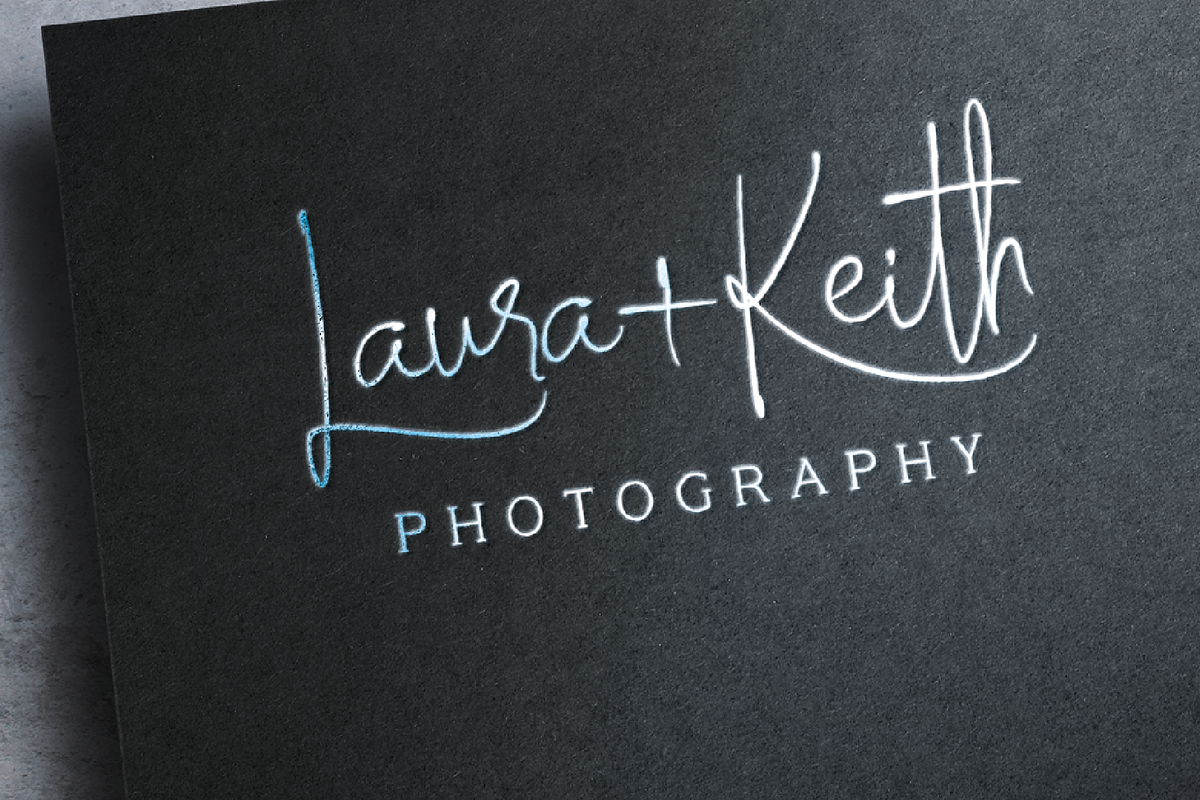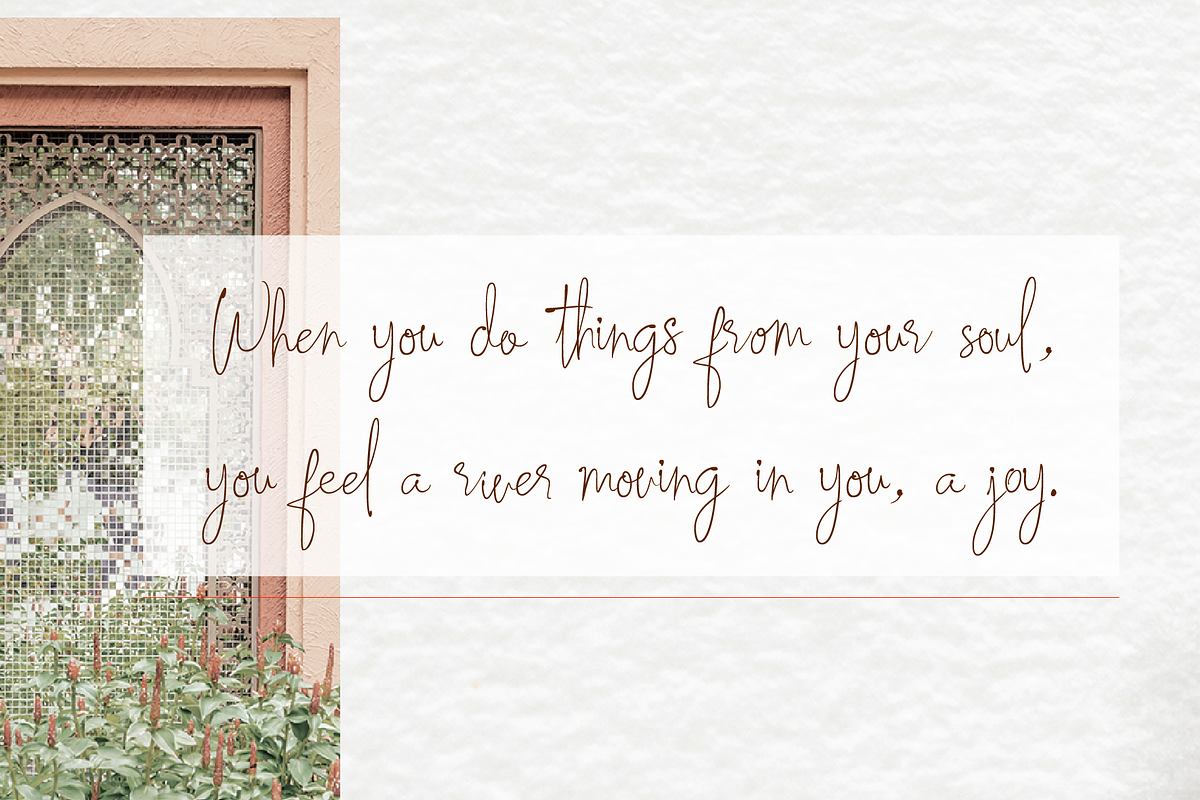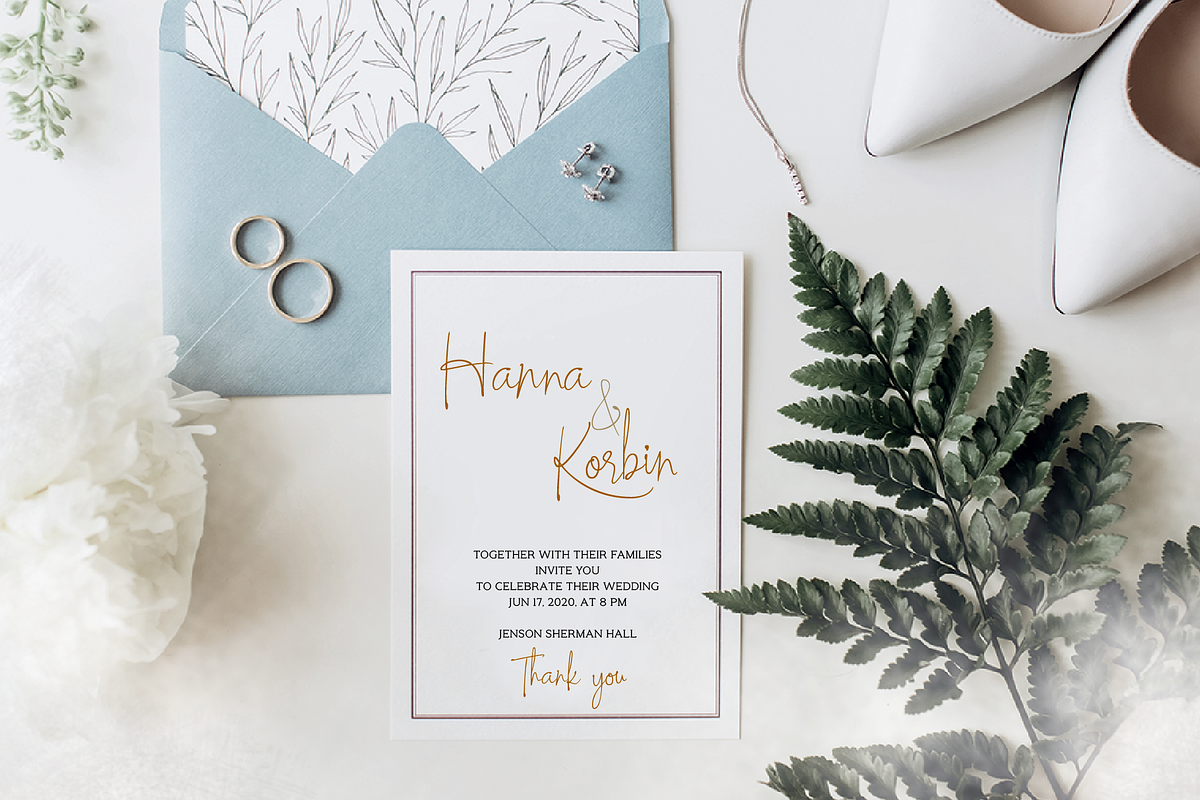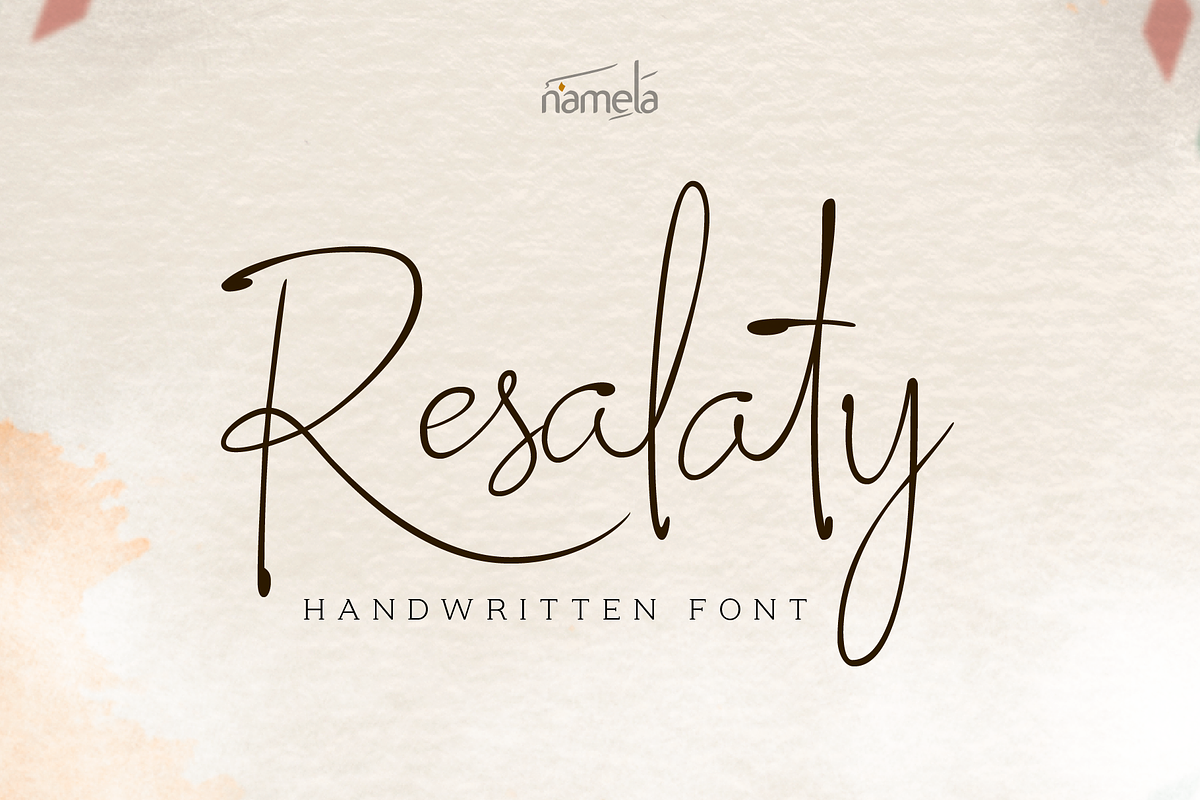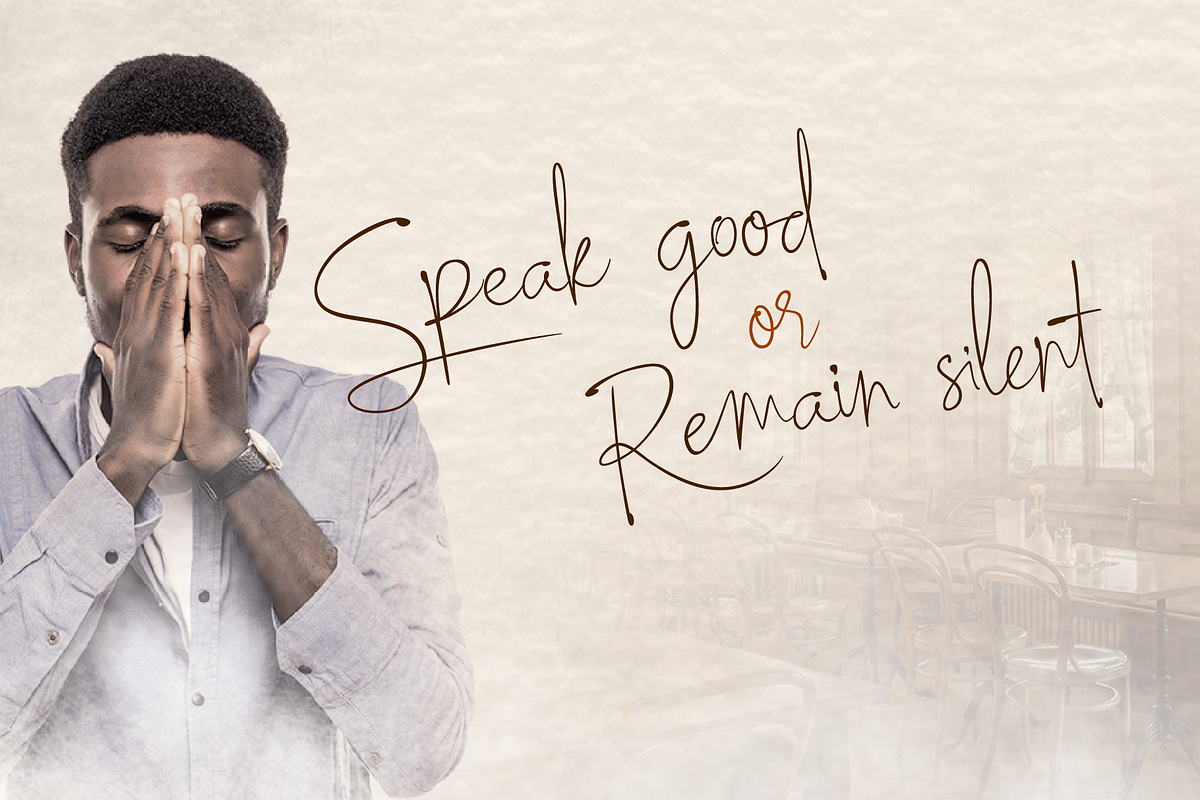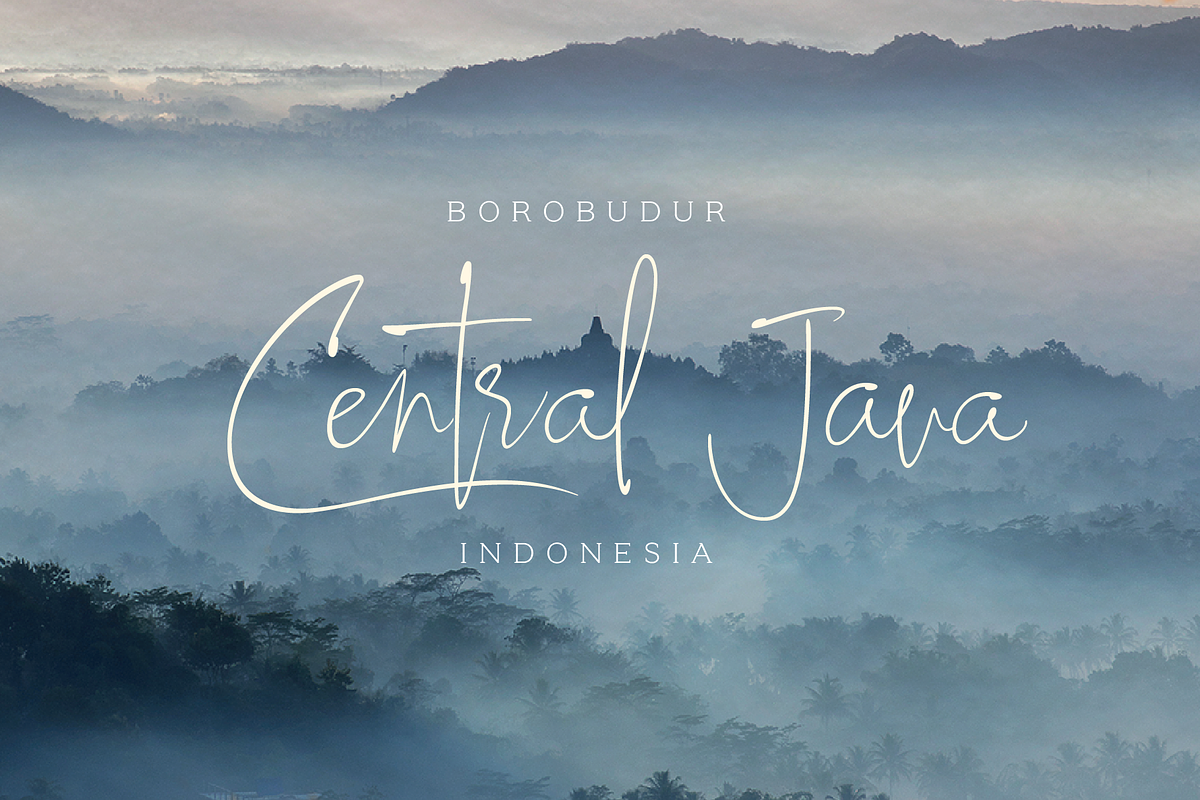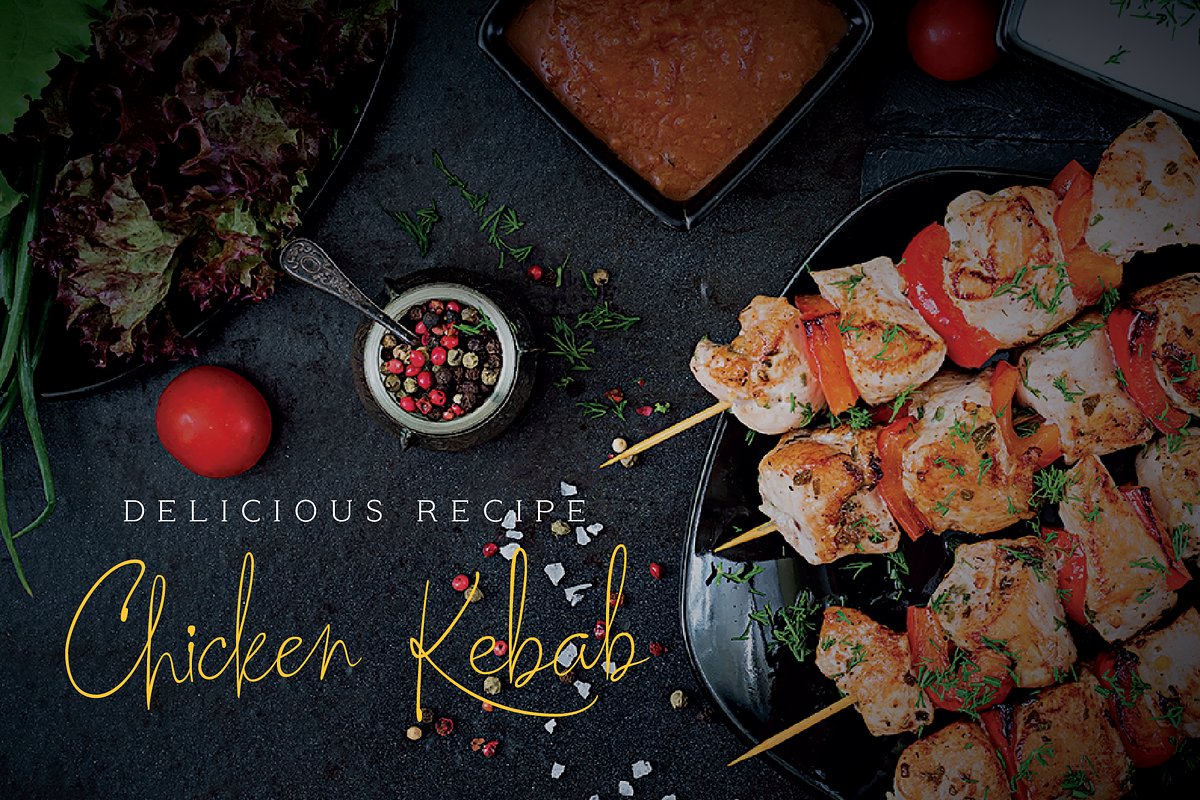
Resalaty - Handwritten Font
Resalaty is a cute and fashionable handwritten font, created to help you designing makes gorgeous logos, posters, wedding invitations, blog posts, social media, apparel and more!